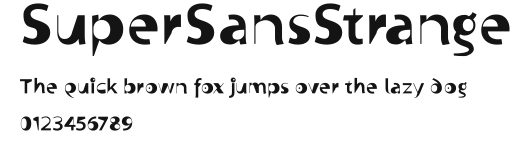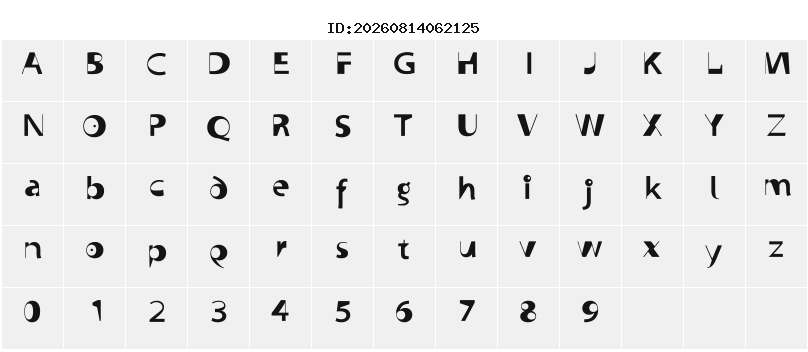
About SuperSansStrange.ttf
SuperSansStrange.ttf is a modern, elegant sans-serif font designed for ultimate readability and visual harmony. Perfect for branding, headlines, web design, and print materials.